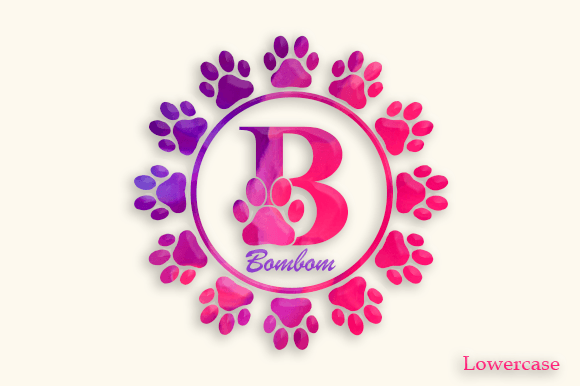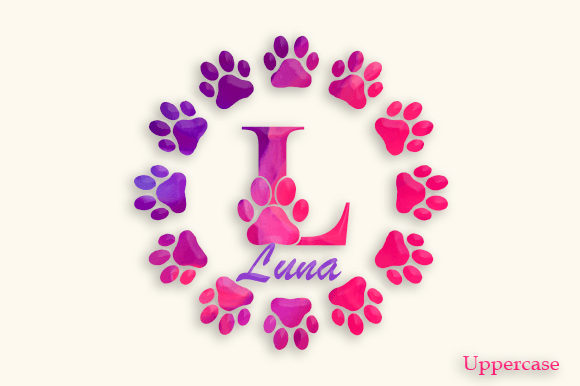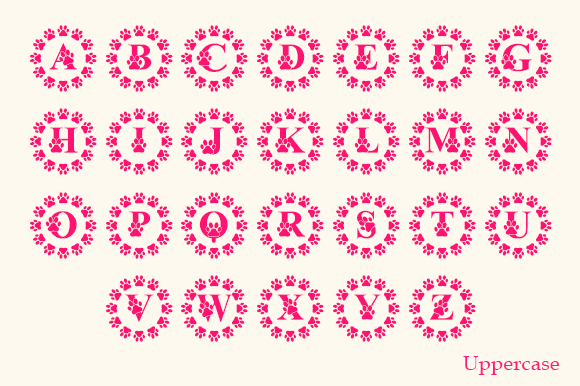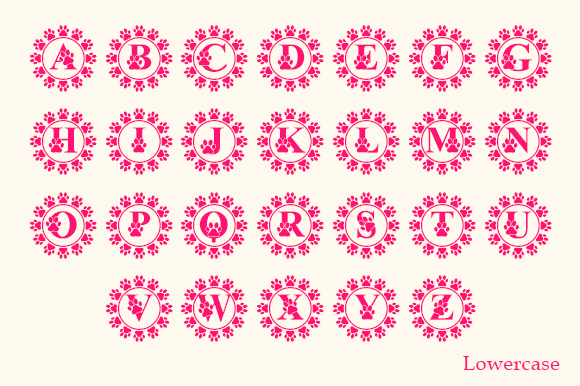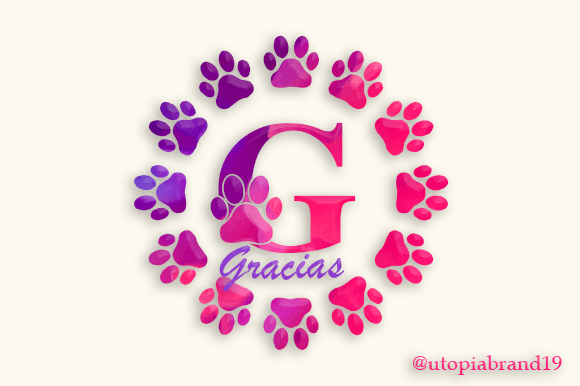
Introduction to Paw Monogram Font
As a designer, you’ve probably experienced that moment of pure joy when you stumble upon the perfect font for your creative project. For me, it was the discovery of the Paw Monogram Font, and I’m excited to share its charm with you. This adorable decorative font features lovely ornaments that add an authentic feel to any design.
Whether you’re crafting wedding invitations, designing beautiful stationery, or creating eye-catching social media posts, the Paw Monogram Font is a valuable resource for any designer. Its high-quality design and versatility make it a must-have for your design toolkit. With a transparent background, you can easily layer it with other elements to create stunning visuals. And the best part? It’s available for a free download, making it an accessible design resource for designers of all levels.
So, what makes the Paw Monogram Font so special? Let’s dive in and explore its features and uses, and discover why it’s a top choice for designers looking to add a touch of whimsy and personality to their creative projects.
Key Features of Paw Monogram Font
- Paw Monogram Font is a high-quality design resource ideal for creative projects, offering a unique and playful twist on traditional monogram fonts.
- This creative font is perfect for adding a personal touch to various design projects, from invitations and greeting cards to logos and branding materials.
Honest Review: Paw Monogram Font
I recently had the chance to work with the Paw Monogram Font, and I must say it’s been a game-changer for my creative projects. ✨ This font is perfect for designers looking for a unique and high-quality design resource.
Here are some of the features that I love about the Paw Monogram Font:
- Transparent background, making it easy to customize and use in various design contexts
However, I do have a few minor complaints:
- ⚠️ Limited customization options, which may not be suitable for all designers
Overall, I’m thoroughly impressed with the Paw Monogram Font. It’s a great addition to any designer’s toolkit, and I highly recommend it for personal or small-scale creative projects. Whether you’re a seasoned pro or just starting out, this font is definitely worth checking out.
When using the Paw Monogram Font, keep the following tips in mind: use a transparent background to give your design a clean look, and experiment with different font sizes and styles to add visual interest. Common use cases for the Paw Monogram Font include designing wedding invitations, party decorations, and other creative projects that require a high-quality, elegant font.